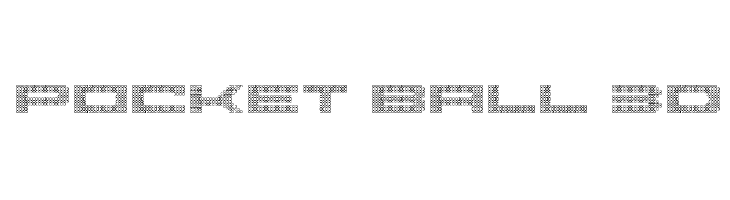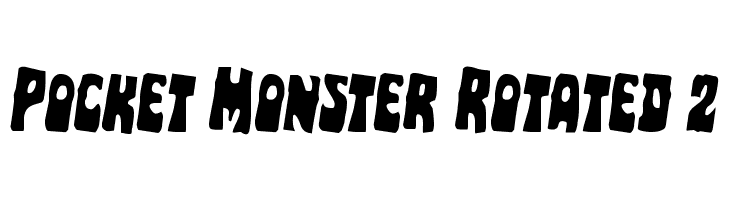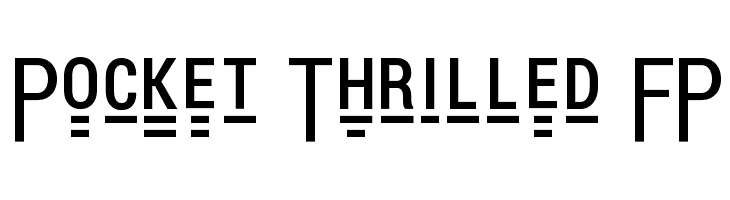
A modern, dotted font with a 3D mesh-like appearance.
A modern, dotted italic font with a digital aesthetic.
A dotted, digital-style font with a modern and futuristic look.
A bold, modern font with geometric lines and unique underlining features.
A playful, rounded font with a modern and slightly retro style.
A playful, bold font with rounded, bubbly characters and a hand-drawn feel.
A bold, playful font with a cartoonish style and strong presence.
A bold, playful font with a three-dimensional bevel effect and whimsical design.
A bold, playful, and condensed font with a whimsical style.
A bold, staggered italic font with dynamic and playful characteristics.